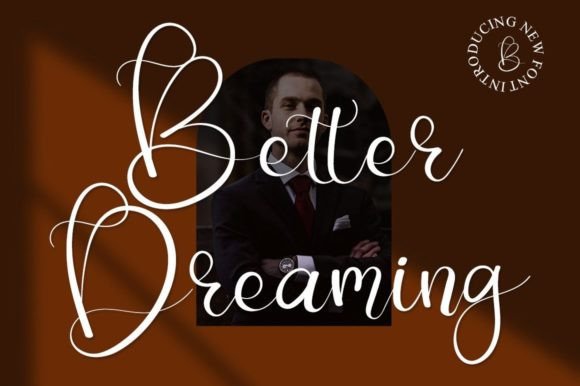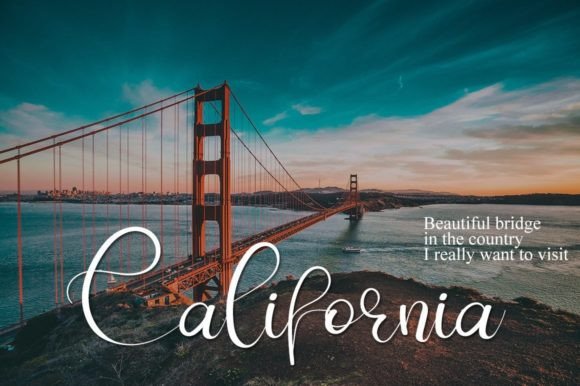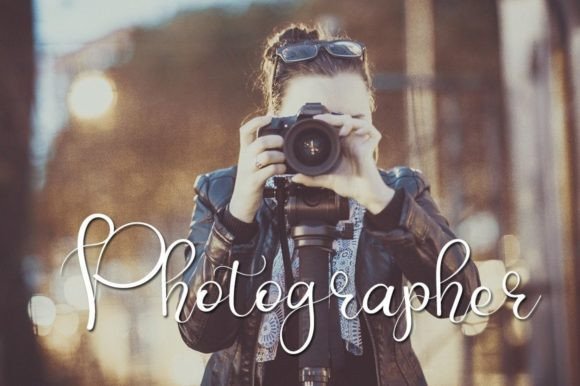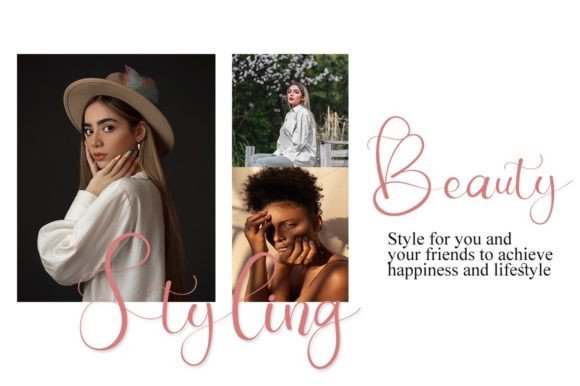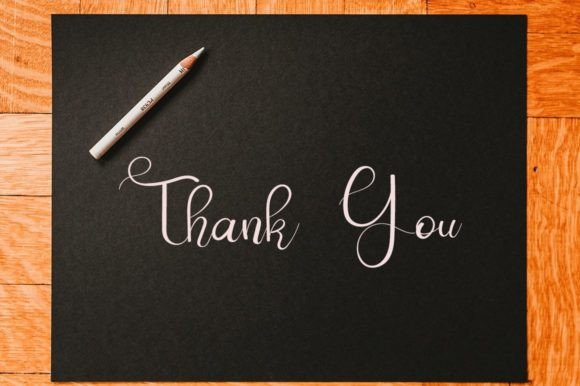
Better Dreaming Font
About Better Dreaming Font
Better Dreaming, a beautiful and sweet script font, introduces a fresh, clean, and elegant touch to your design projects. This versatile font is tailored to enhance a wide array of applications, be it formal or informal, infusing your designs with an exceptionally joyful and sophisticated essence.
The script style of Better Dreaming lends a distinctive charm to your projects, contributing to a modern and timeless visual appeal. Its clean lines and graceful curves make it a delightful choice for various design contexts, ensuring that it seamlessly adapts to your creative needs.
Whether you’re working on formal business materials or engaging in more casual, creative endeavors, Better Dreaming stands out as a font that not only simplifies but elevates your design. The font’s sweet script adds a touch of personality and warmth, making it an ideal choice to establish a connection with your audience.
In the world of design, fonts play a pivotal role in simplifying and refining visual elements. Better Dreaming excels in this regard by not only simplifying but also beautifying your designs. Its elegance and simplicity work together to ensure that your message is conveyed with clarity and impact.
Choosing Better Dreaming for your business materials enhances the overall aesthetic, making your brand appear more beautiful and inviting. This script font is more than just a typographic choice; it becomes a design element that adds grace and charm to your visual communication.
To sum up, Better Dreaming is not just a font; it’s a design asset that brings beauty, simplicity, and joy to your creative projects. Whether you’re crafting formal documents or expressing yourself through more casual designs, Better Dreaming is a versatile font that enhances the visual appeal of your work, making your business not just more beautiful but also more memorable.